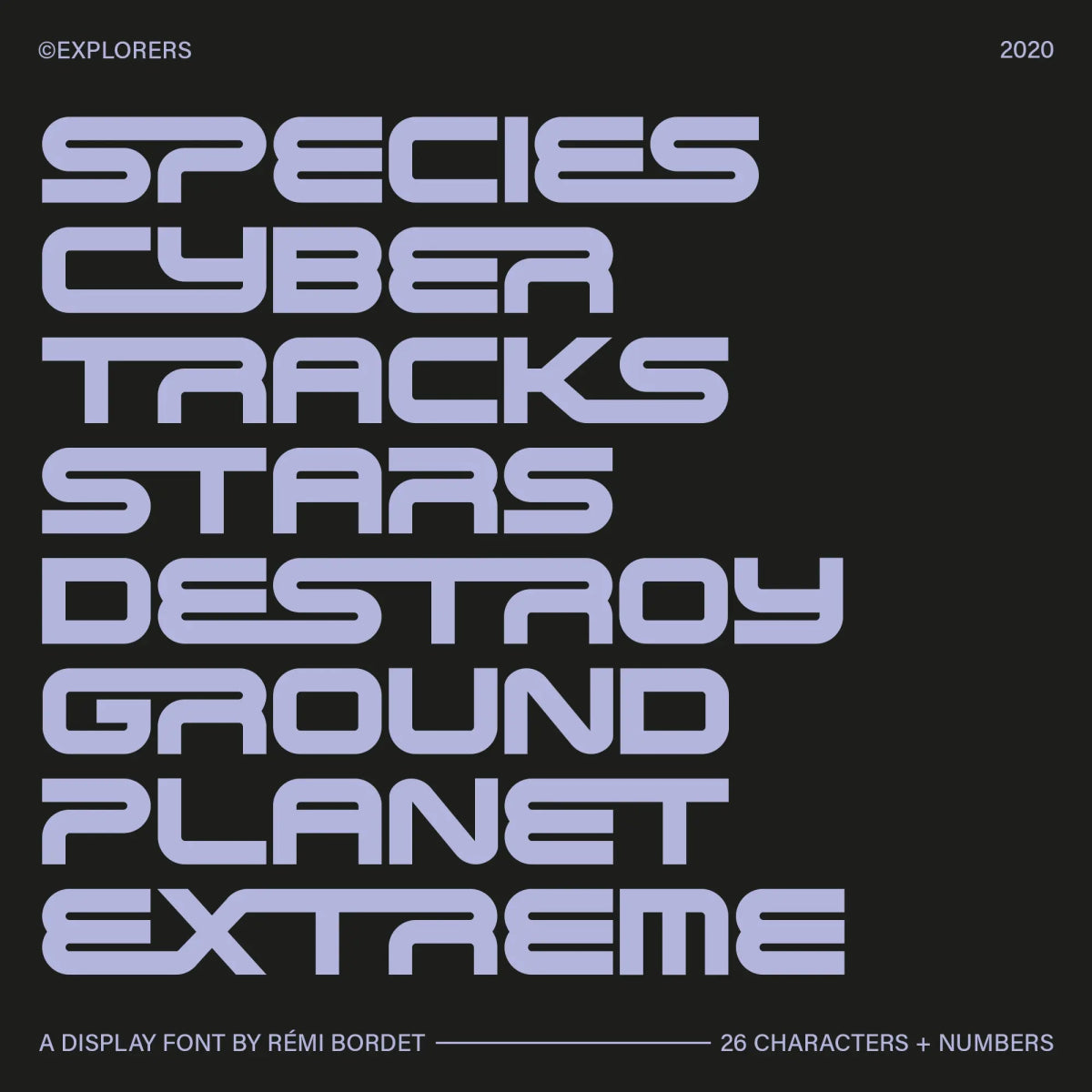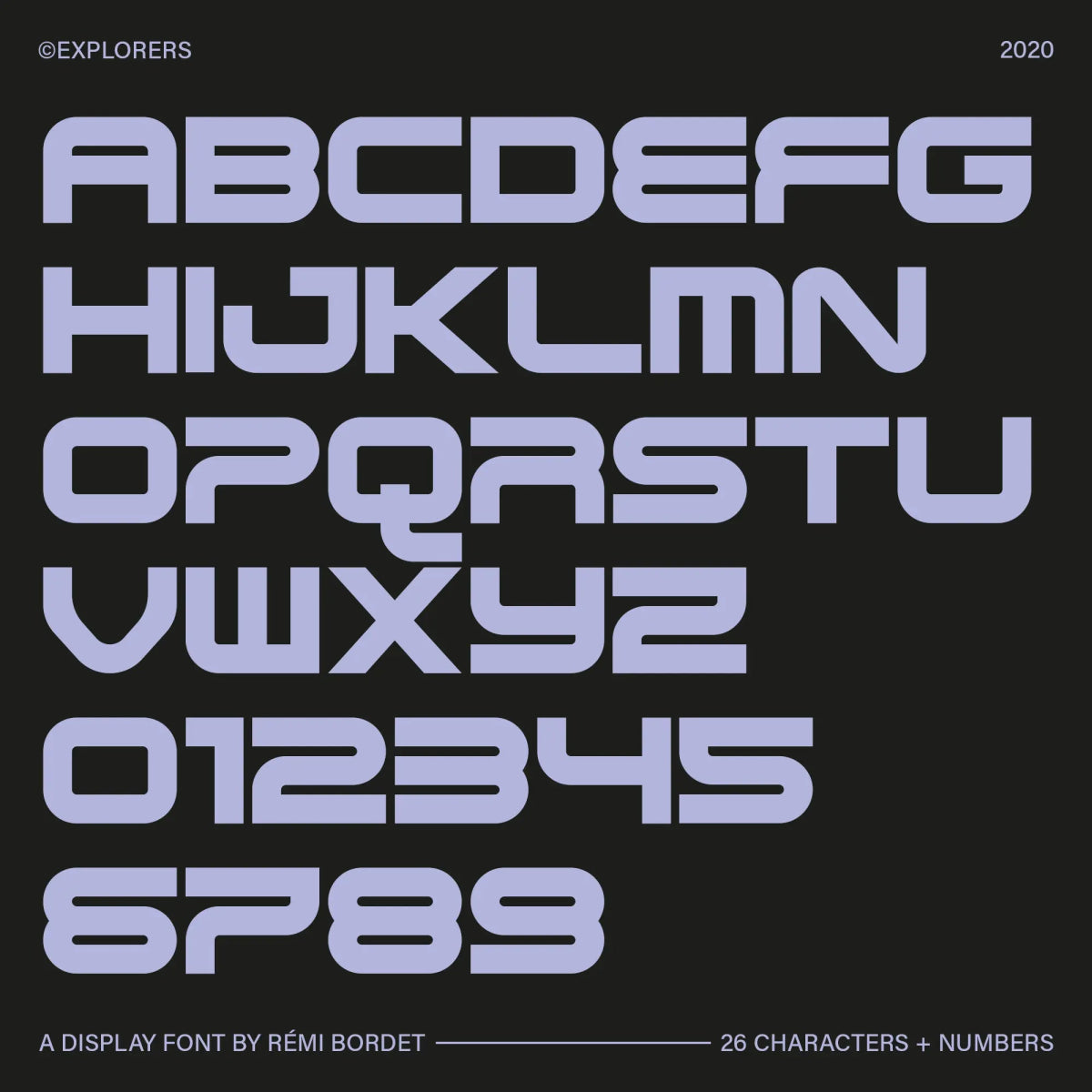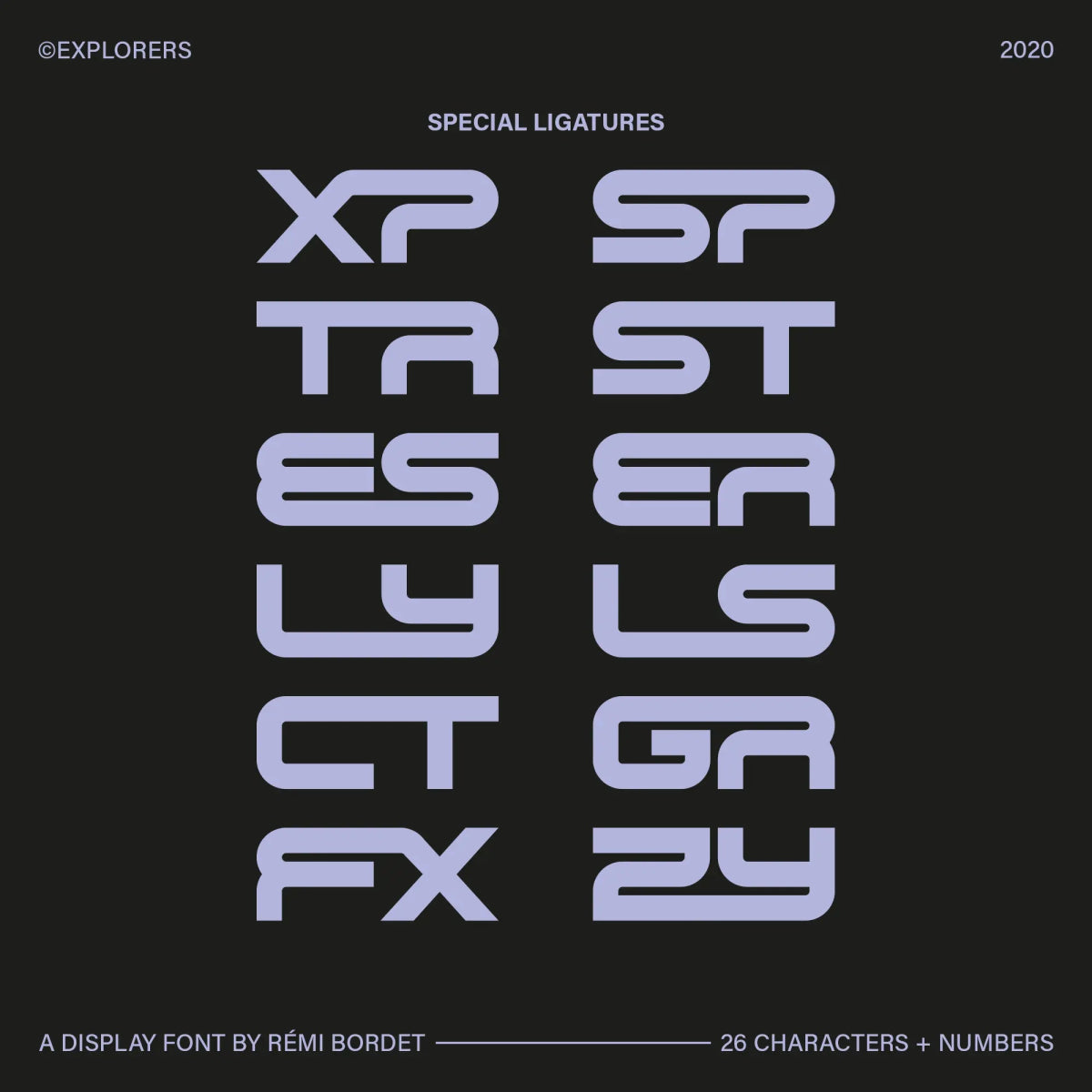
Explorers Display Font
by Rémi Bordet
Explorers is a bold, space-age display font that fuses retro-futurism with clean, modular structure. Its rounded corners and compact forms make it perfect for sci-fi themes, tech branding, video games, and bold editorial headlines.
Font Features
• Full uppercase A-Z alphabet
• Full set of numbers (0-9)
Rémi Bordet
Rémi Bordet is a french graphic and type designer and artist who creates bold, minimalist posters combining impactful imagery and typography. His work highlights contradictions, both aesthetically and symbolically speaking, through stylistic visual metaphors that blend brutalist aesthetics with emotional depth.